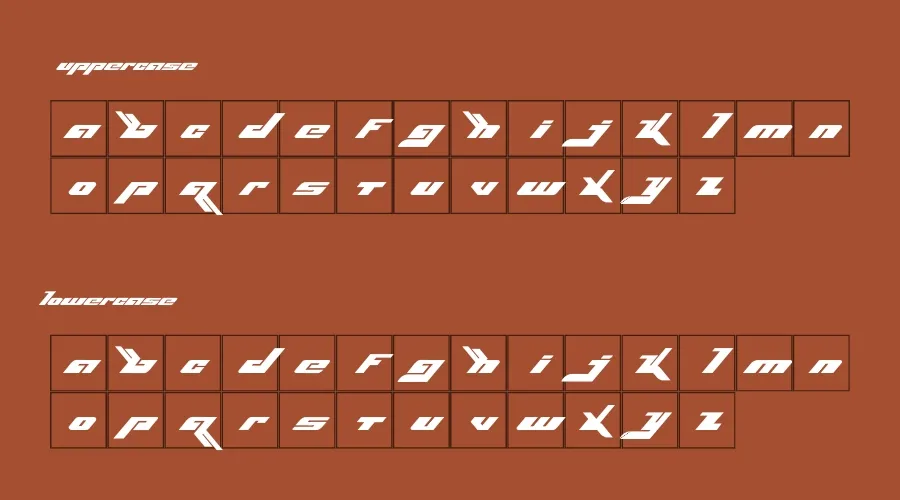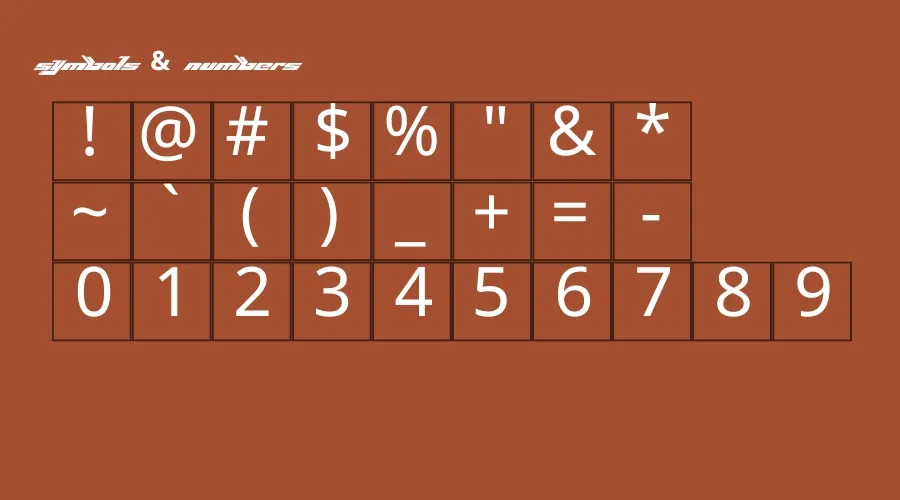
Bjork Font
About Bjork Font
The Bjork Font was developed by a well-known typographic designer known as the name of Japanese graffiti. This style is under the category of the logo font family and contains multiple different types of weights and styles.
It is suitable for both Adobe Photoshop and CSS. It includes different characters of the alphabet set such as small letters, capital letters, digits, symbols, and punctuations.
This typeface’s online generator instrument is perfect for transforming any simple texture into trendy characters. This typeface’s copy & paste capabilities make it ideal for all projects. It can be utilized with the sega logo font. It is simple to utilize outstanding projects.
The Bjork typeface has a good-looking and fantastic texture, that is suitable for all your fun designs. You can download it free from here for all your secret purposes.
The Bjork Font is a great option for any task that requires a logo font with a contemporary design. Its clean lines and stylish characters make it perfect for usage in both photography and digital media. It is also generally utilized for symbols, due to its special design.
Name Bjork Font
Designer Japanese graffiti
Style Display
• Bjork Regular
• Bjork Bold
Is Bjork Font a good font for a website?
You can suggest that it is a reasonable website typeface. It is suitable for headers and titles. But it is not right for the body text.